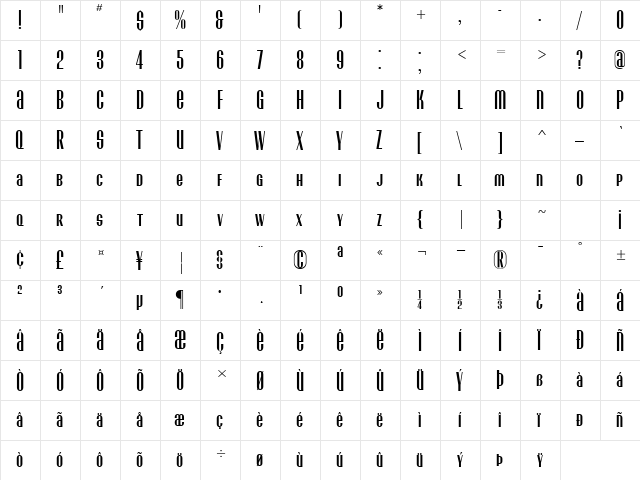
EunoiaCondensedUnicase Regular
Design Context for EunoiaCondensedUnicase Typeface
EunoiaCondensedUnicase is a composed and adaptable typeface that performs quietly and consistently across a wide range of design contexts. The condensed width makes it efficient for tight spaces without sacrificing legibility.